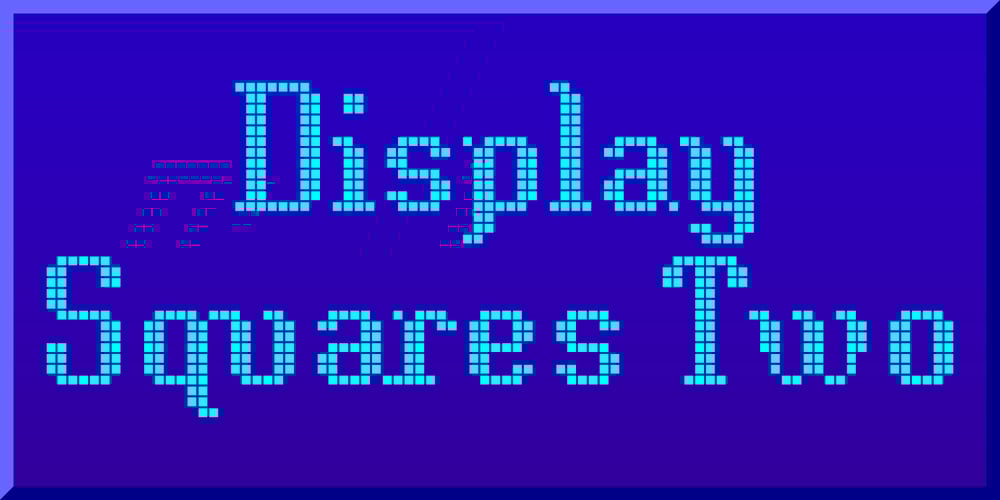
Display Squares Two
Display Squares Two font
Display Squares Two Font Family was designed by Gerald Gallo and published by Gerald Gallo. Display Squares Two contains 1 styles and family package options. Display Squares Two is a display font not intended for text use. It was designed specifically for display, headline, logotype, branding, and similar applications. Display Squares Two has upper and lowercase alphabets, numbers, and punctuation.